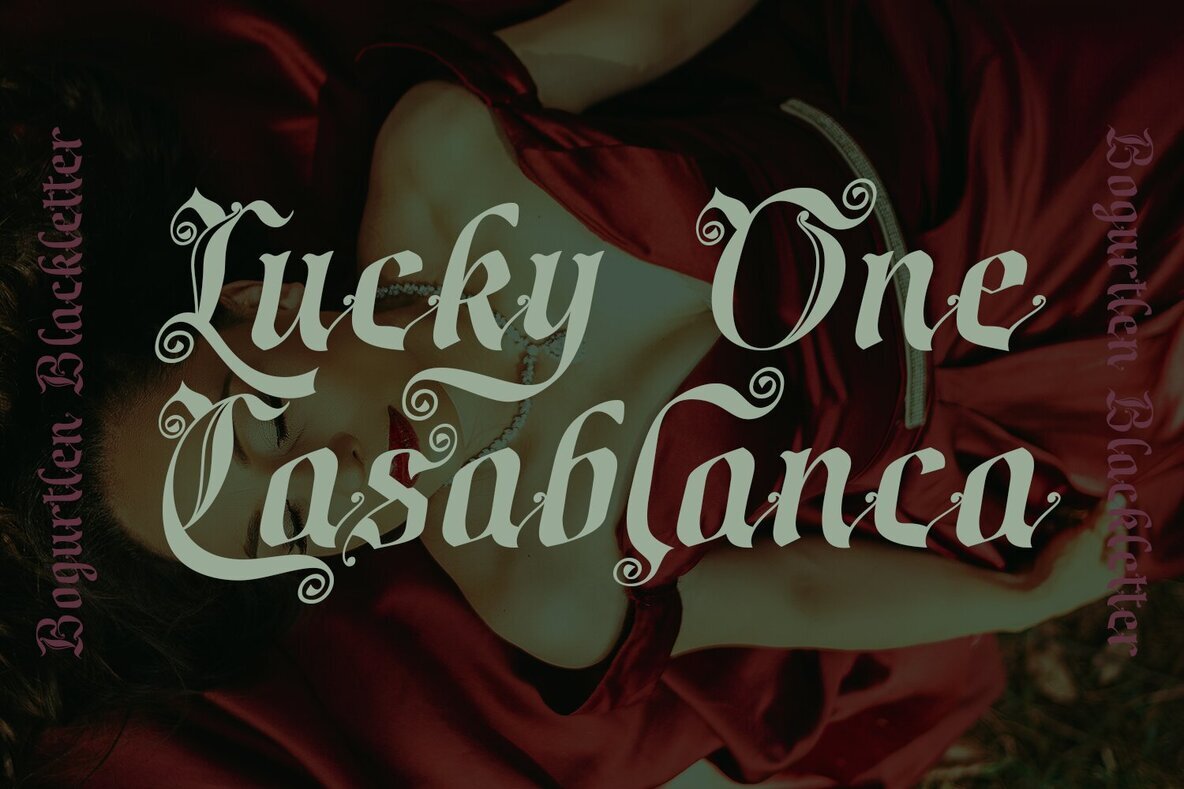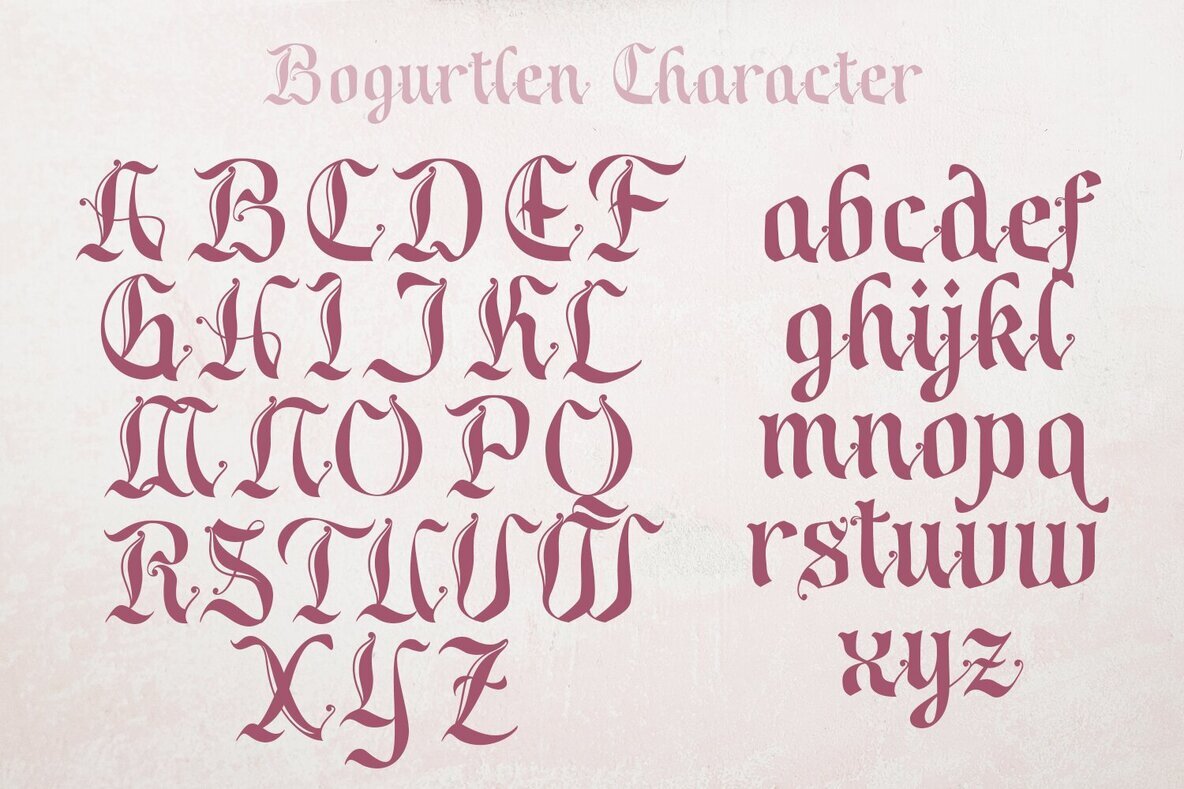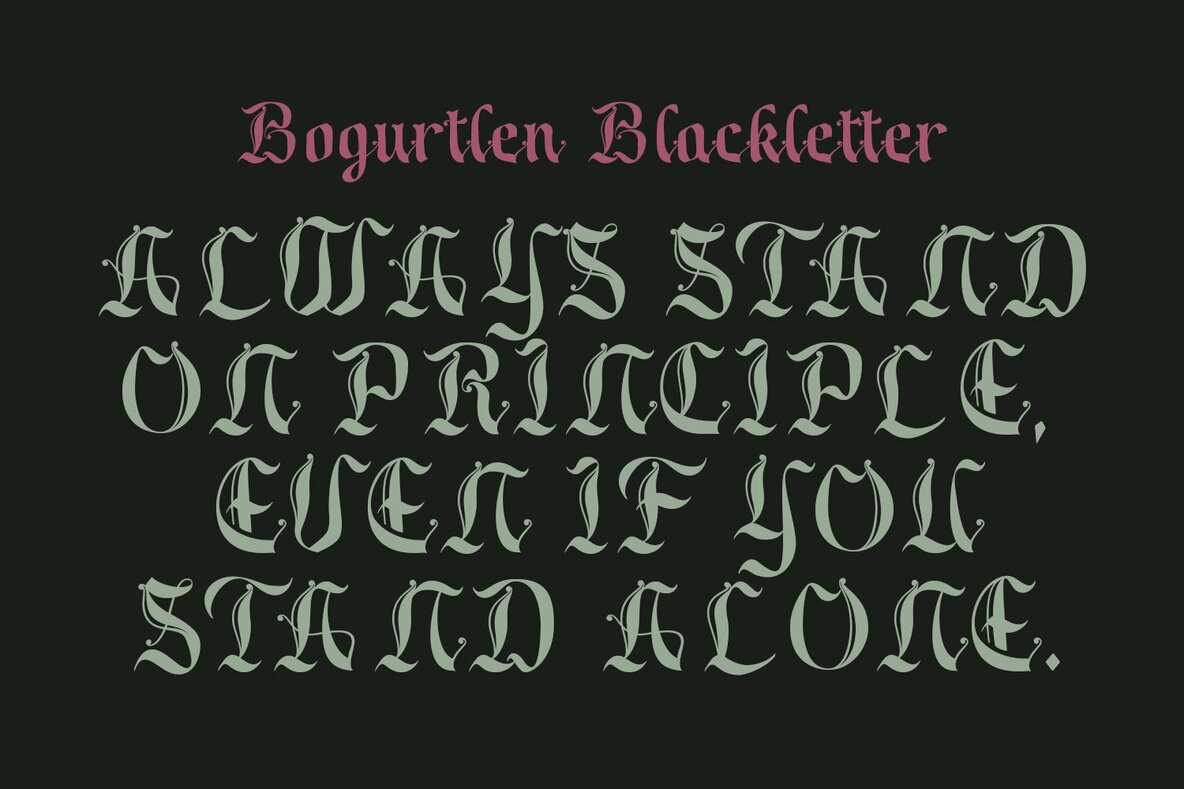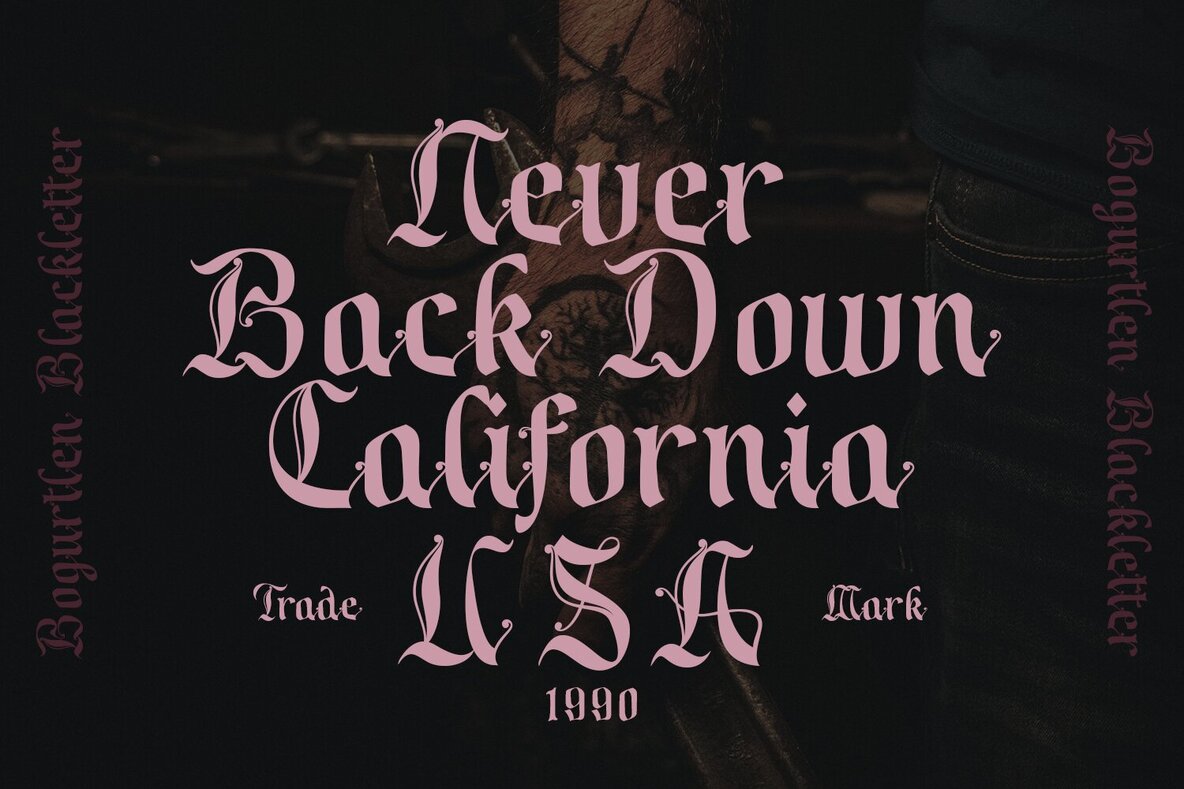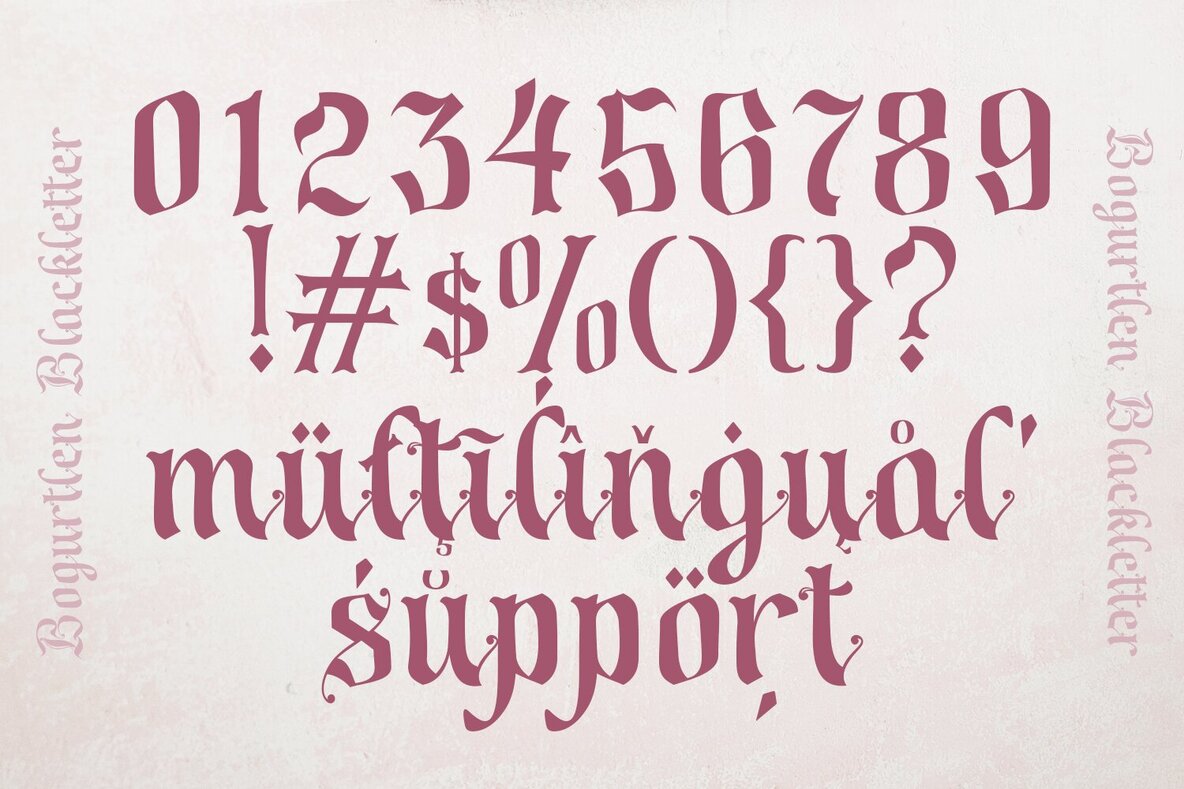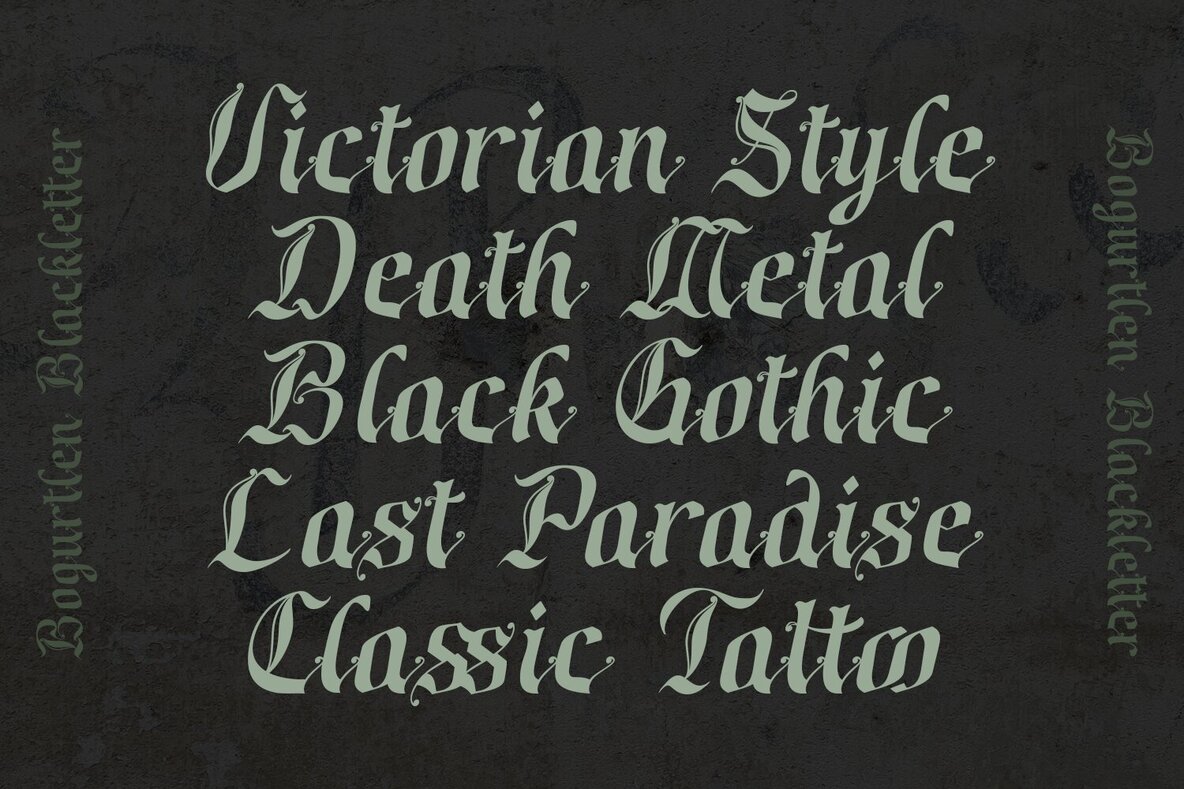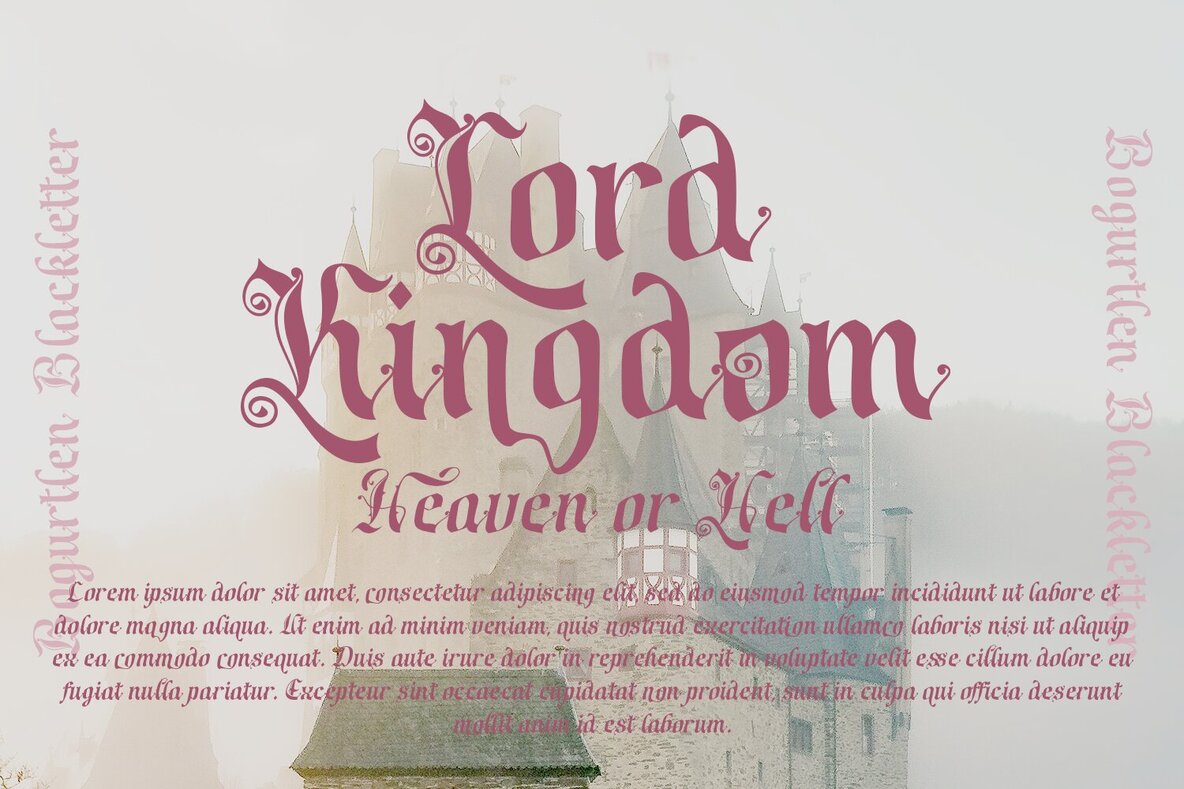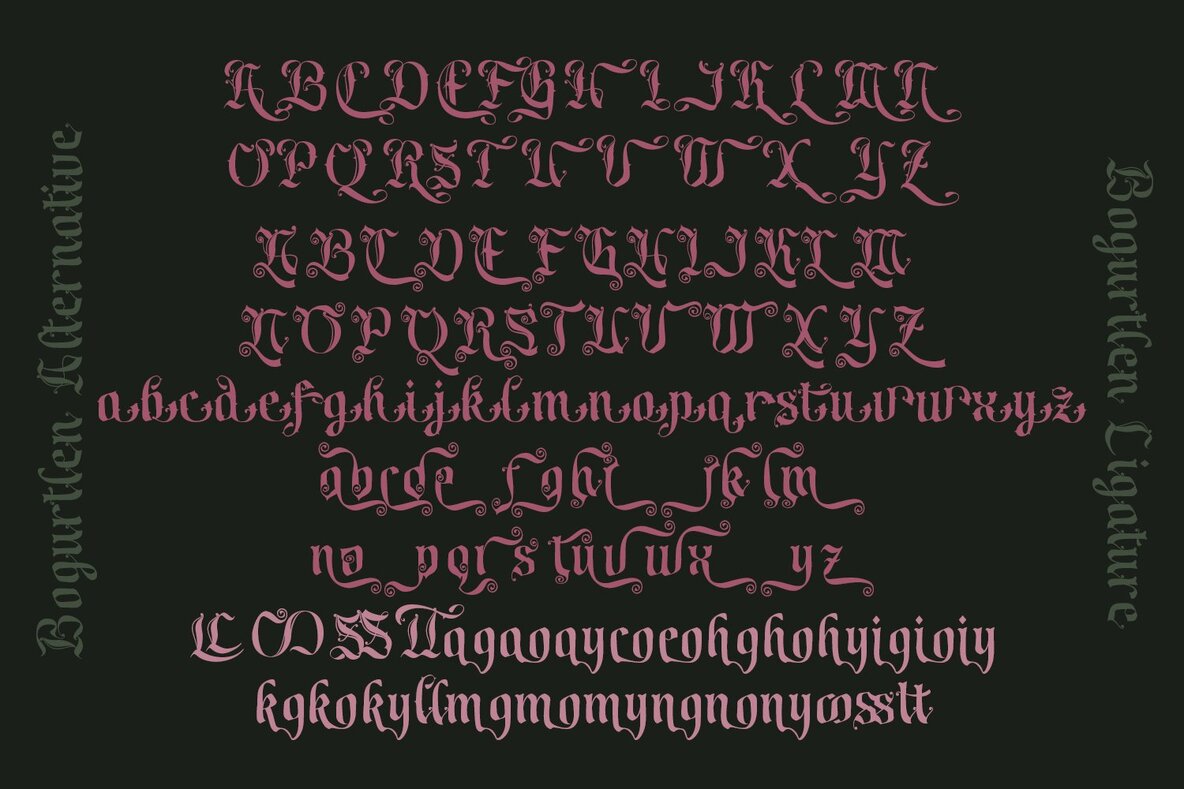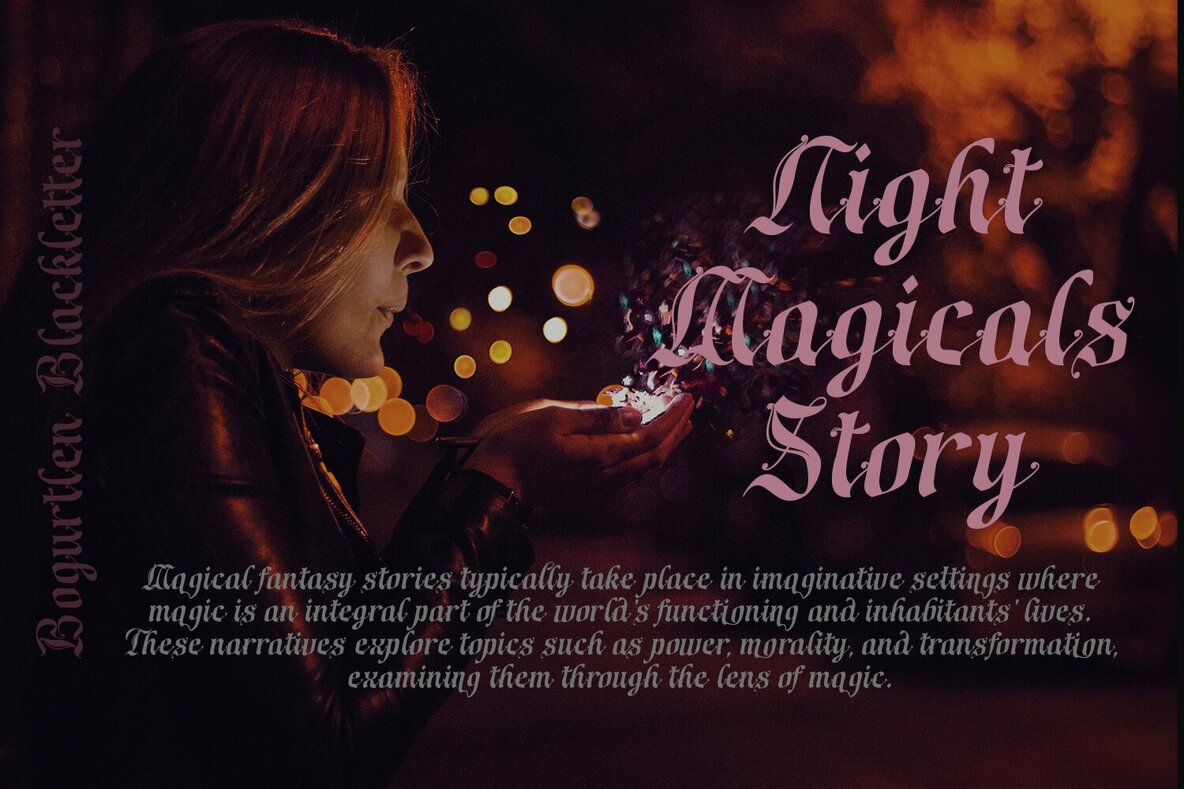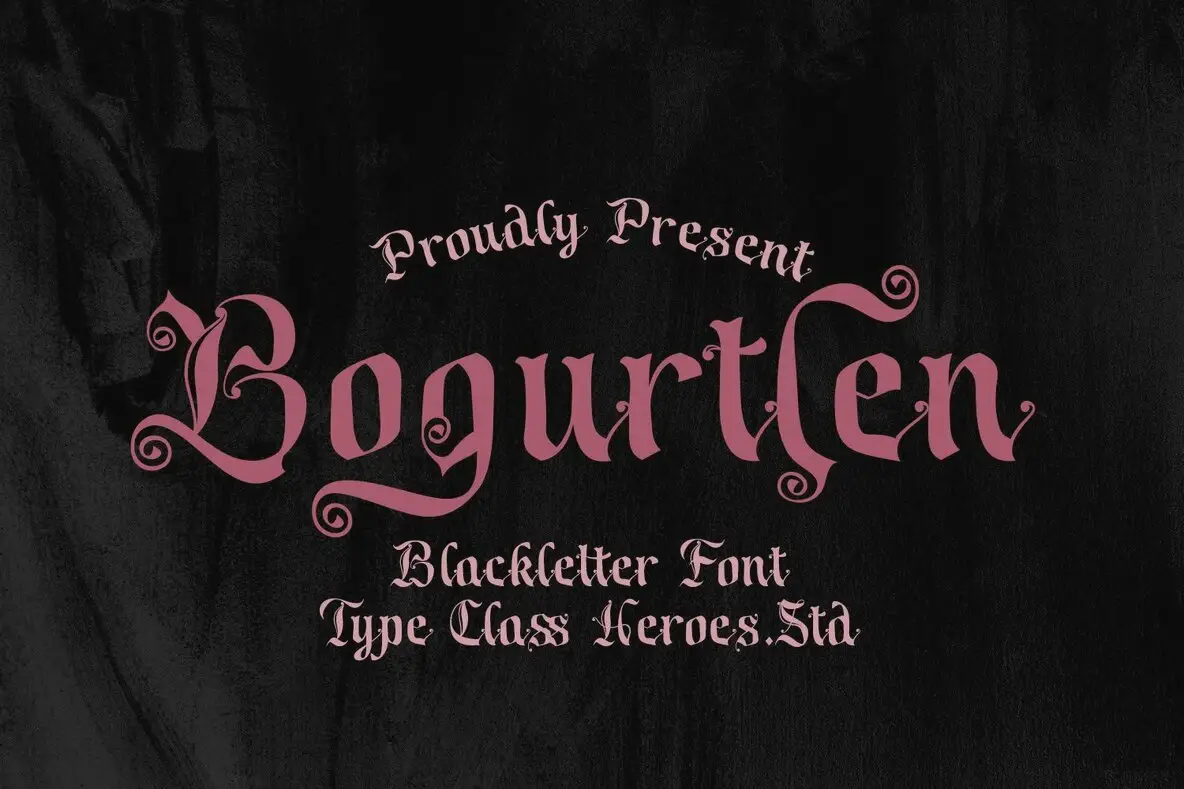
Bogurtlen: A Classic Blackletter Typeface
Bogurtlen emerges as a sophisticated blackletter font, designed to make a striking impression in any design endeavor. This elegant typeface blends traditional blackletter characteristics with modern stylistic alternatives, ensuring it captures attention while providing versatile usage.
• Stylish Impression – Ideal for projects requiring a touch of historical grandeur.
• Versatile Applications – Perfect for branding, packaging, invitations, quotes, apparel, labels, posters, and logos.
• Alternative Characters – Offers a range of stylistic choices for lettering.